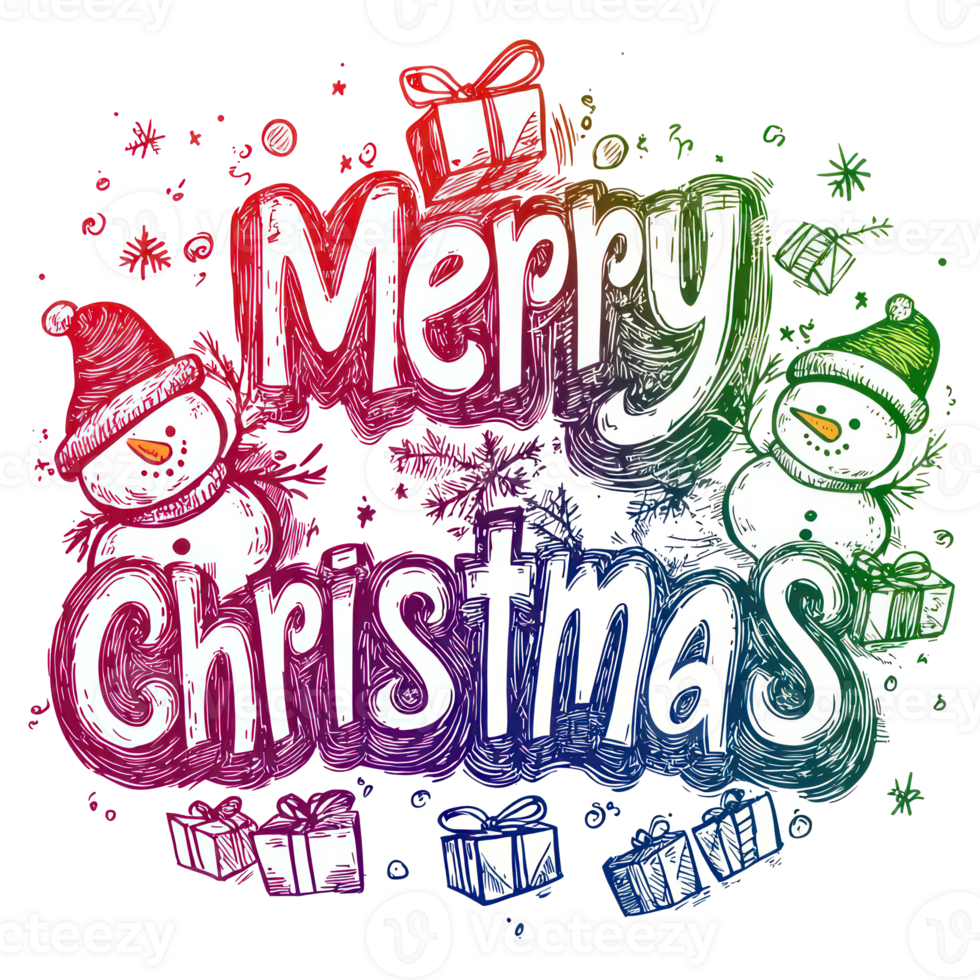
Playful Handwritten Style Merry Christmas in a playful, handwritten font, colored in a gradient from red to green, with doodles of snowmen and gifts surrounding it. isolate on transparent background Pro PNG